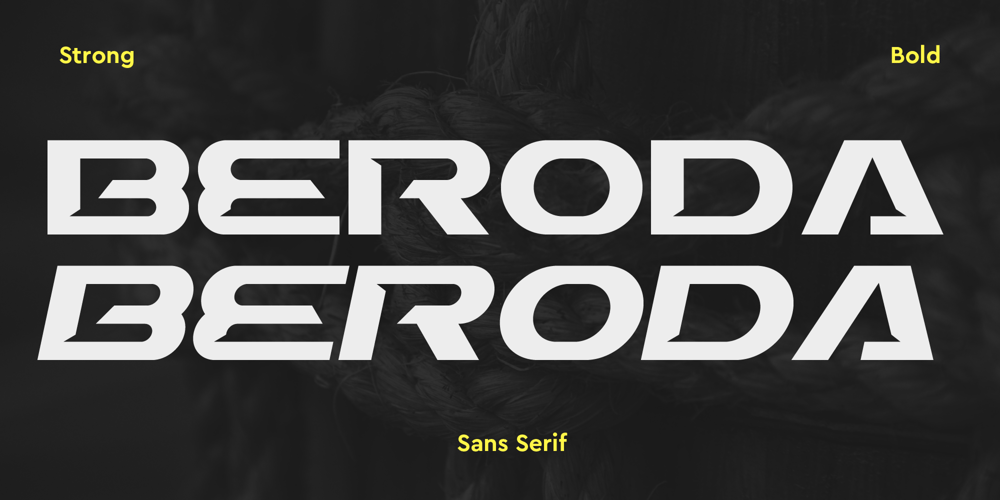
Beroda Font Family was designed by Iwan Alwan and published by Artiveko. Beroda contains 2 styles and family package options. Beroda, the brainchild of typographer extraordinaire Iwan Alwan, stands as a stalwart testament to the power of design innovation. Bold, yet effortlessly sleek, this sans serif font commands attention with its unique contours and dynamic interplay between uppercase and lowercase glyphs. Its strength lies not only in its aesthetic appeal but also in its versatility, boasting multilingual support to effortlessly adapt to diverse linguistic landscapes.With each character meticulously crafted to exude charisma and charm, Beroda effortlessly bridges the gap between tradition and modernity, making it an indispensable tool for designers seeking to make a bold statement with their typography.